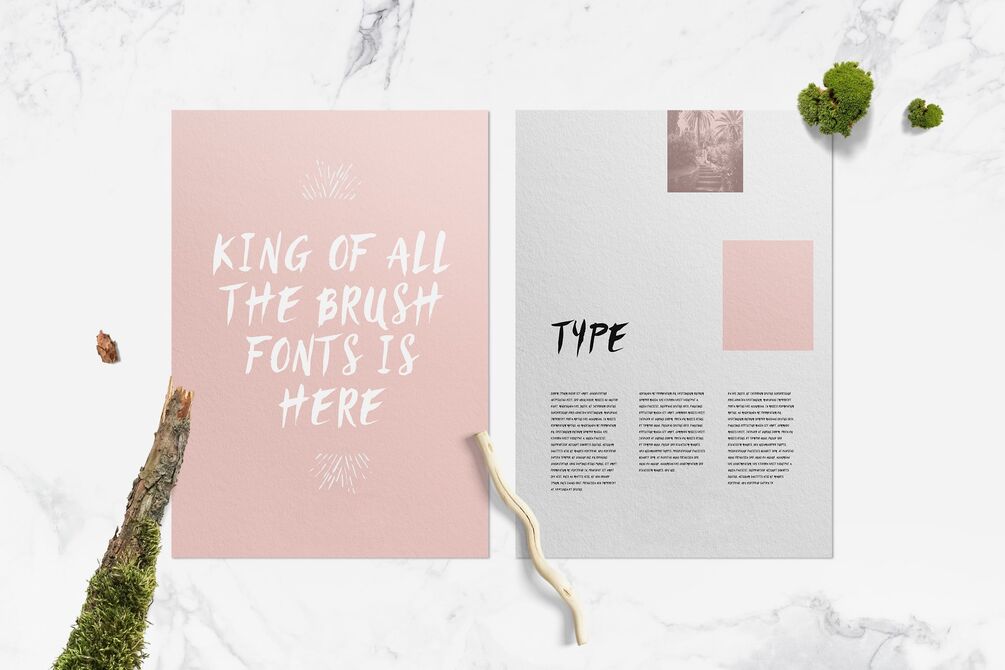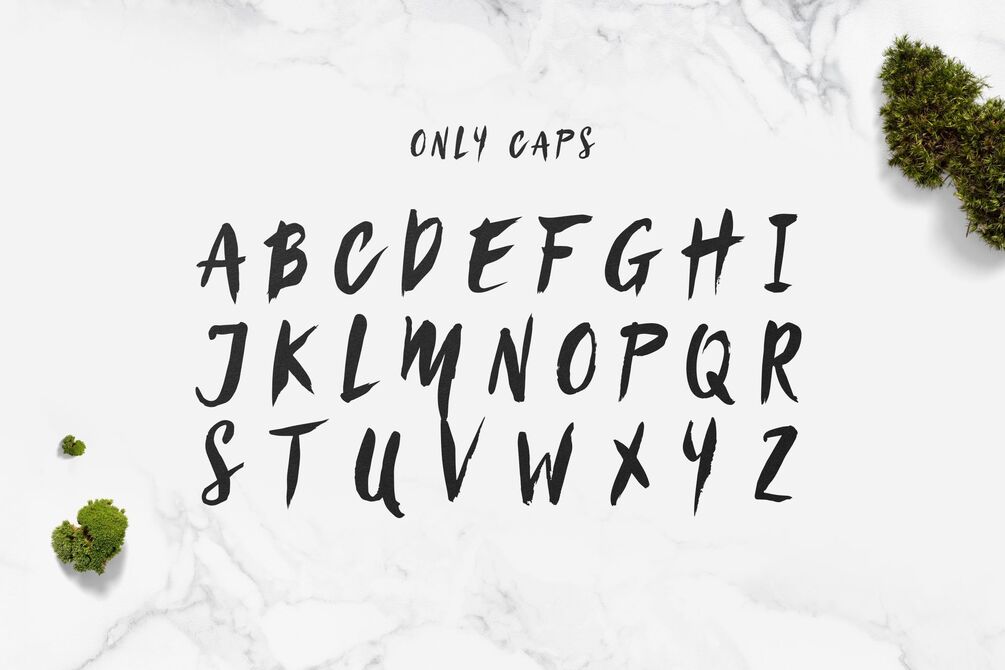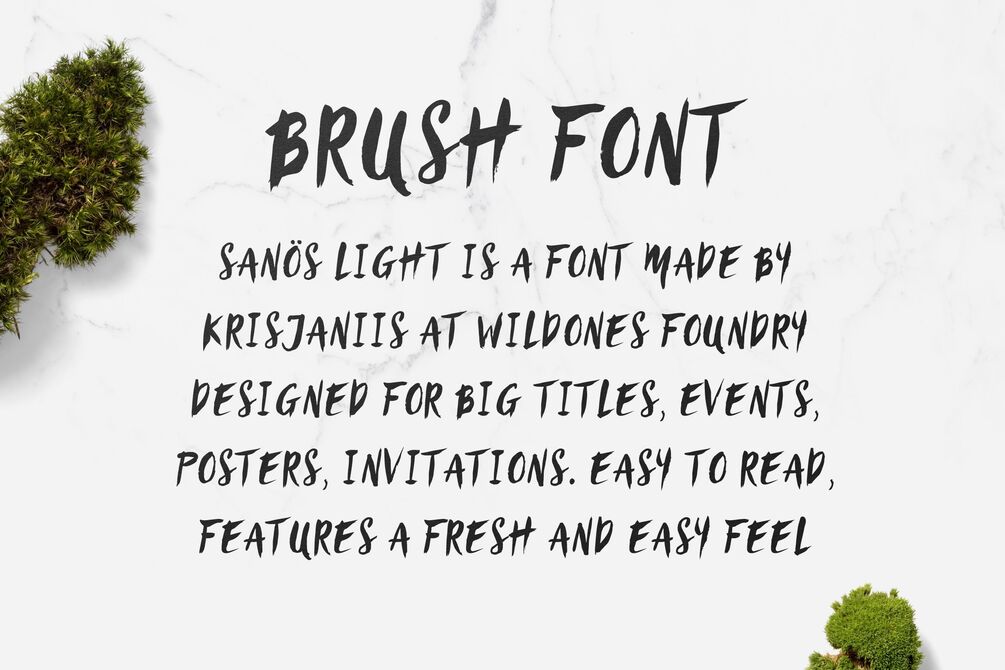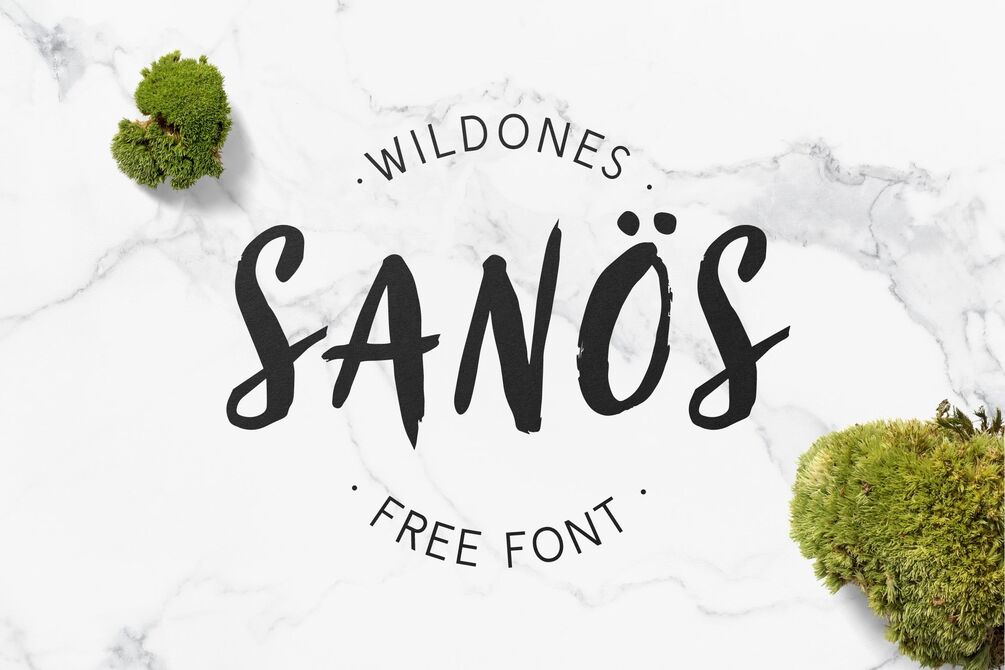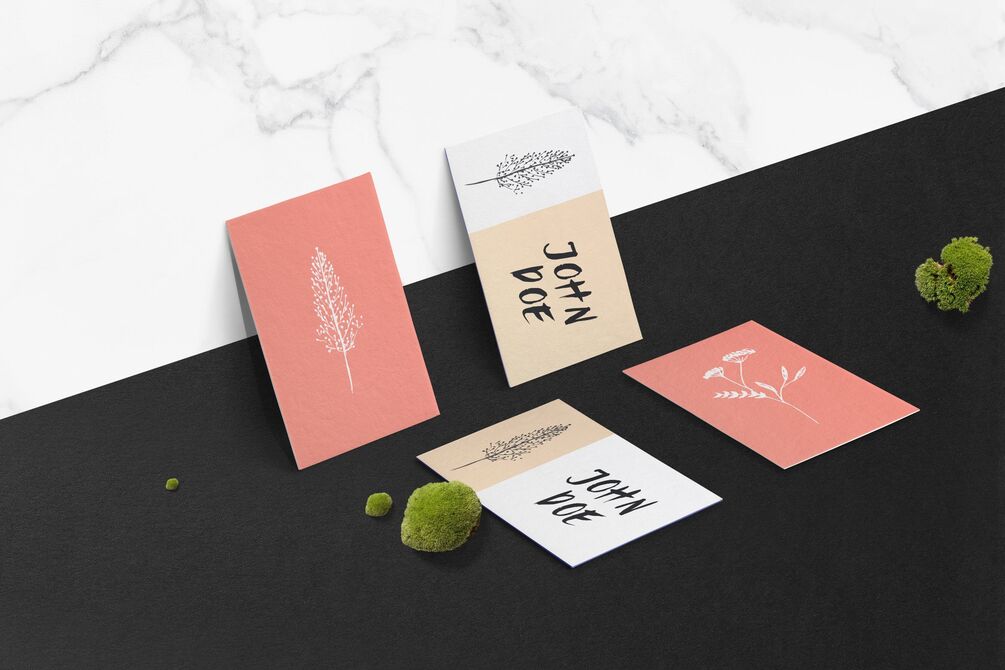
Sanös Free Brush Script Font
Sanös Free Brush Script Font is perfect for handwriting style projects. It comes in two formats .TIFF and .WOFF. So you can also use it for web sites and apps.
This brush script font works best for fashion, beauty products, food, apparel and magazines. Sanös Free Brush Script Font could also be used for film, television, marketing, advertising and websites.
Take your designs to the next level with Sanös Free Brush Font.